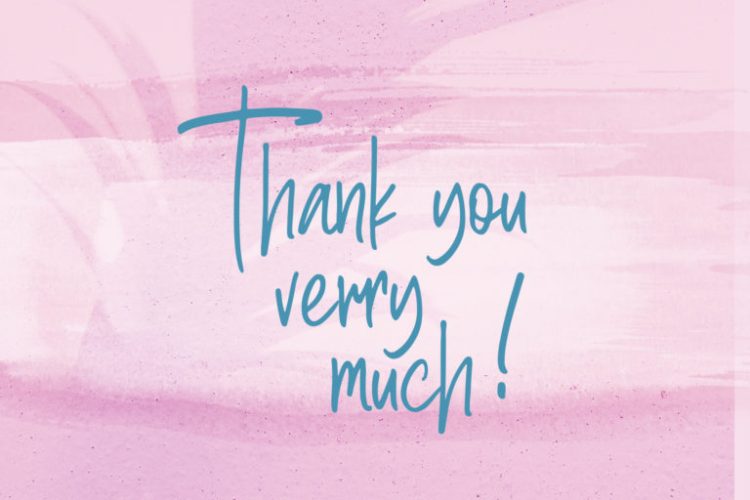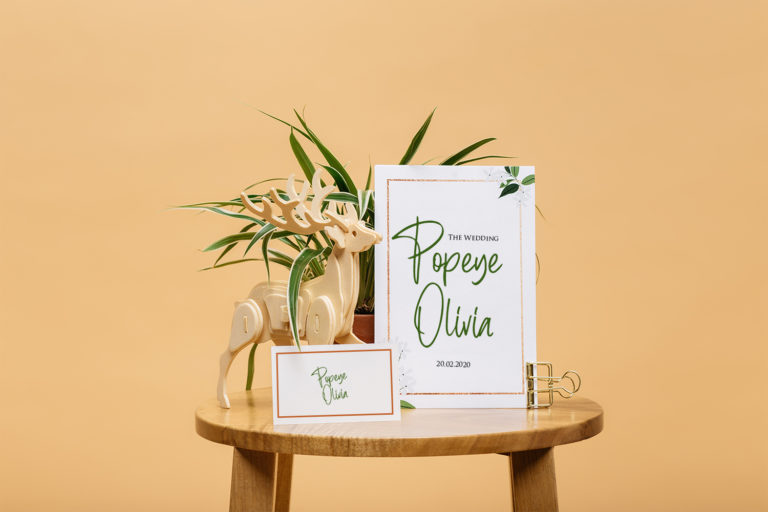
Berthusen Font with natural handwriting style perfect for many different projects such as logos, branding, invitation, stationery, wedding designs, social media posts, advertisements, product packaging, poster, product designs, label, photography, watermark, special events or anything, quotes, fashion, etc.
Berthusen Font Features :
• Uppercase
• Lowercase
• Number
• Punctuation
• Multilingual